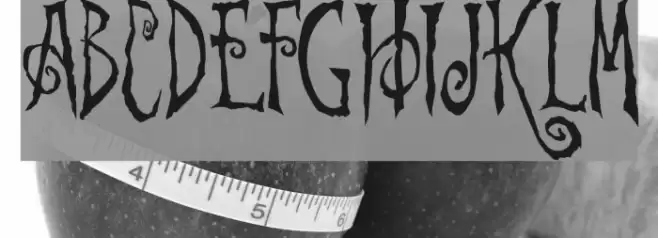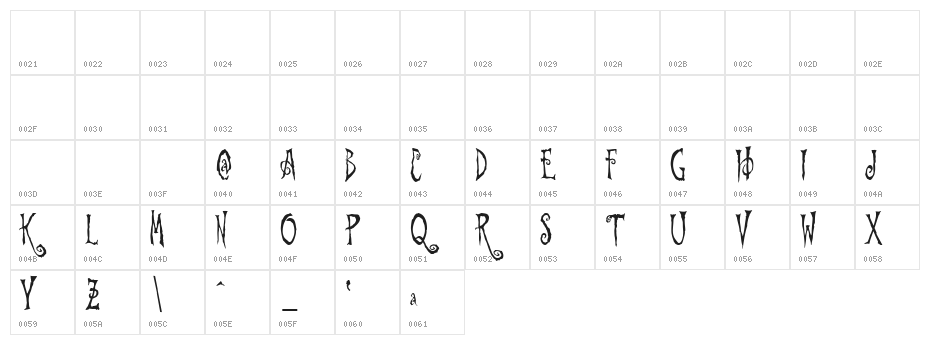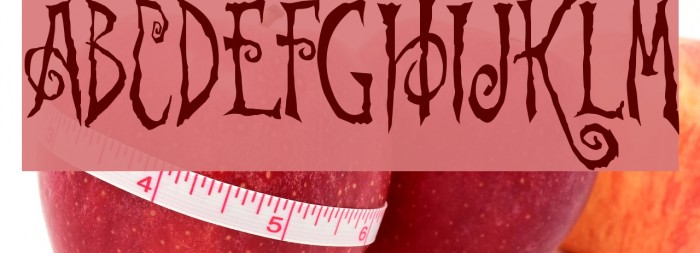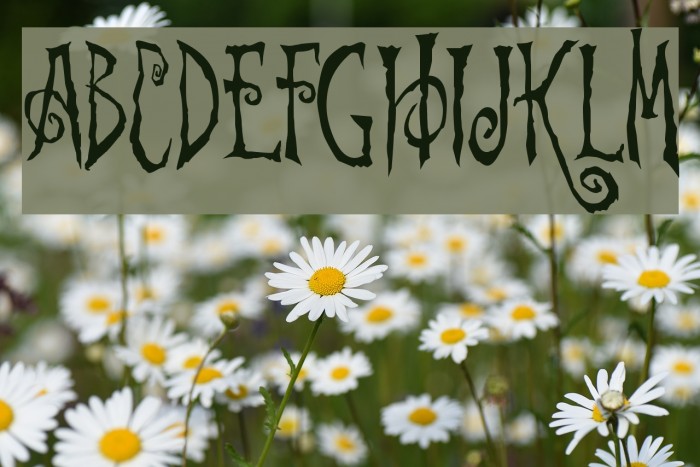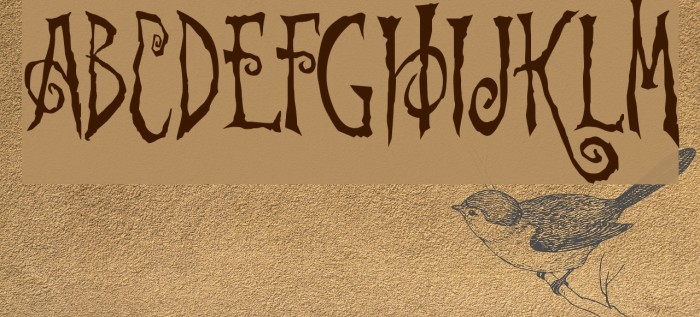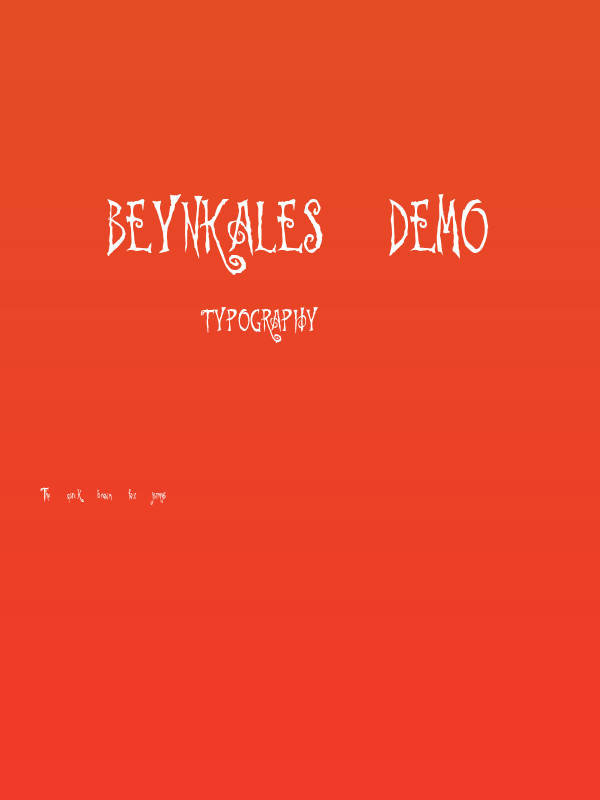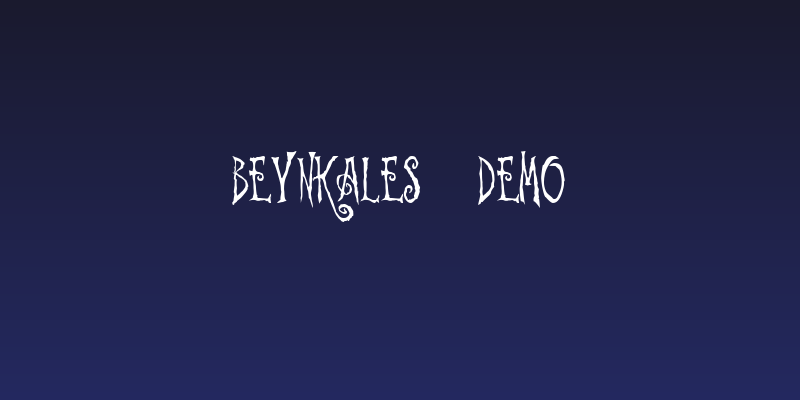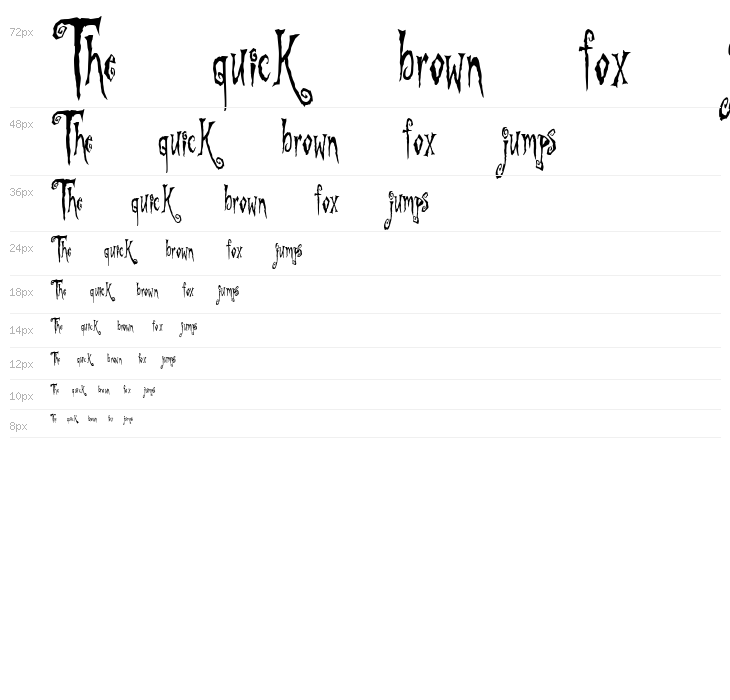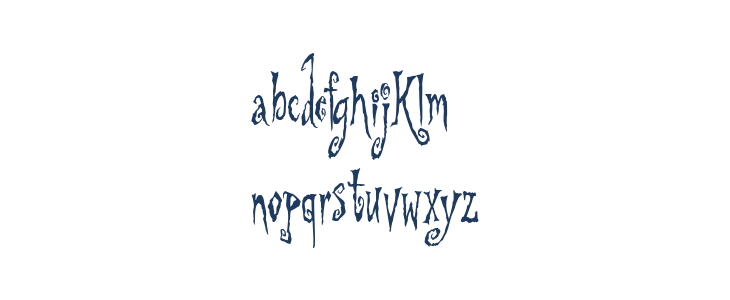
Beynkales Demo Font
Beynkales Demo Description
This font features a highly decorative and whimsical style, characterized by its irregular, jagged edges and playful, swirling elements. The uppercase letters are bold and dramatic, with exaggerated serifs and unique, artistic flourishes that give each character a distinct personality. The lowercase letters maintain the same quirky aesthetic, with varying heights and whimsical curves that add to the font's overall charm. The numbers and special characters continue this theme, ensuring a cohesive look across all elements. This font is perfect for projects that require a touch of fantasy or a gothic, mysterious vibe.
A whimsical, decorative font with jagged edges and playful swirls from Uncategorized fonts.
- Proposed Projects: Ideal for fantasy-themed posters, Halloween invitations, or artistic book covers.